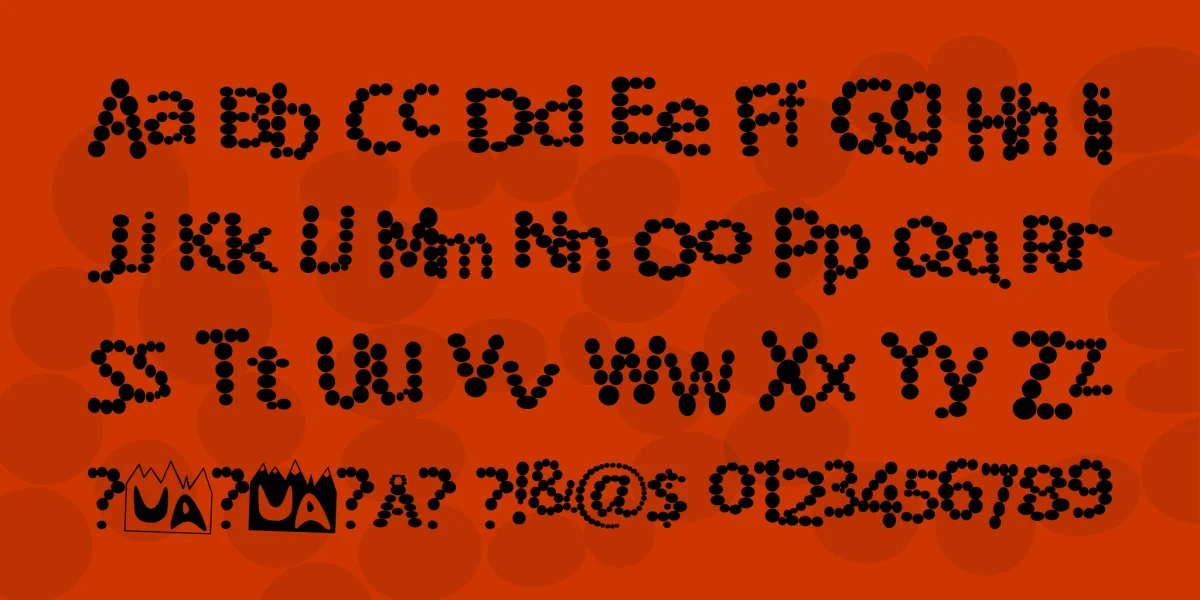
This version includes upper and lowercase letters, punctuation, and many international characters. I also included some new UA Type dingbats (just to amuse myself, and so you don't get those annoying boxes when you type something that isn't in the font).
Fonts can get sick, just like people. This one was taking vacation in the Rockies, going to do some camping and hinking, and caught this disease. The spots gave it great pain, and it was jumping all around. I used my special font medicine to kill all the germs, but it was left distorted and still jumpy.